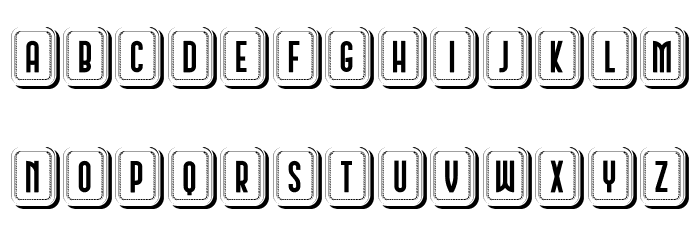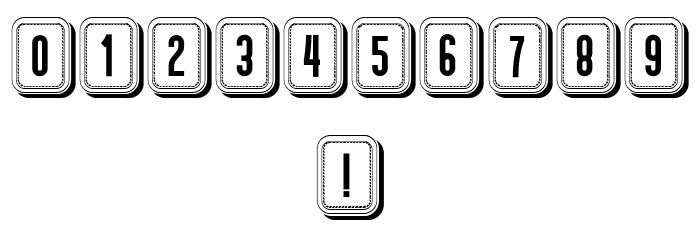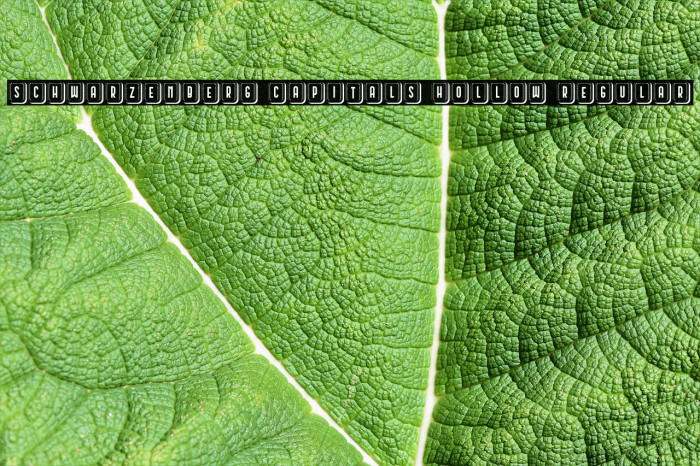
Schwarzenberg Capitals Hollow Regular Font
This font features a bold, hollow design with a distinct three-dimensional effect, created by a shadowed outline around each character. The uppercase letters are prominently displayed, each enclosed within a rectangular frame that enhances their visual impact. The characters are evenly spaced, providing a balanced and structured appearance. The numbers and special characters follow the same design principles, ensuring consistency across the font. The style is reminiscent of vintage signage, making it ideal for projects that require a retro or decorative touch.
A bold, hollow font with a vintage, three-dimensional style.
- Font: Schwarzenberg Capitals Hollow Regular
- Proposed Projects: Ideal for vintage-themed posters, signage, logos, and decorative headings.
- Overall Style: Vintage